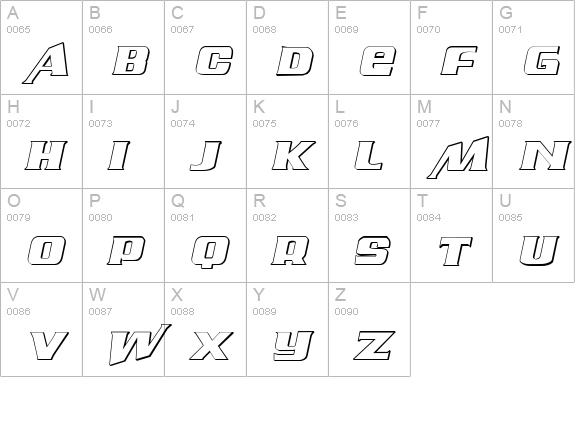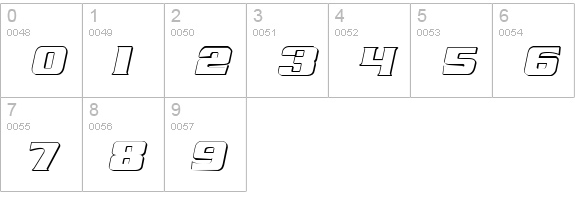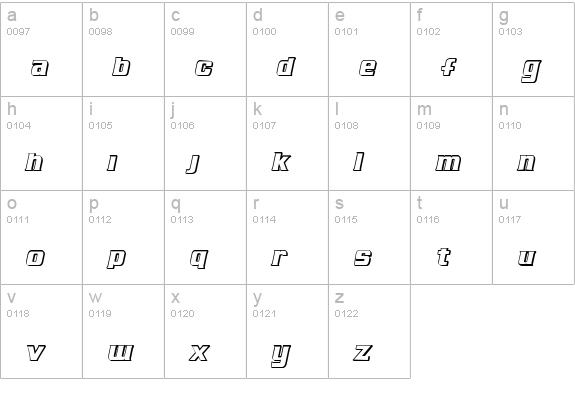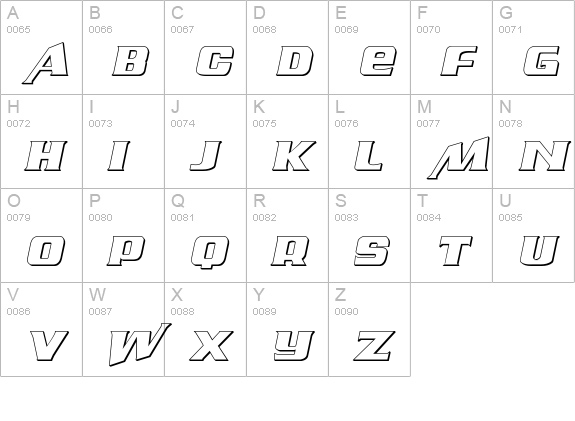
Air Millhouse Outline Font Details
Air Millhouse Outline font is a modern and stylish typeface that exudes sophistication and elegance. Its clean lines and precise angles give it a sleek and contemporary look, making it perfect for a wide range of design projects. Whether you're creating a logo, branding materials, or a website, this font will add a touch of class to your work. The best part? Air Millhouse Outline font is available for free download at FontsMarket.com. This means you can easily access this high-quality font without any cost, making it a great option for designers on a budget or anyone looking to add a premium touch to their designs without breaking the bank. With its versatile design and professional appearance, Air Millhouse Outline font is sure to elevate your projects and help you stand out from the crowd. Download it today and see for yourself the impact this font can make on your work.